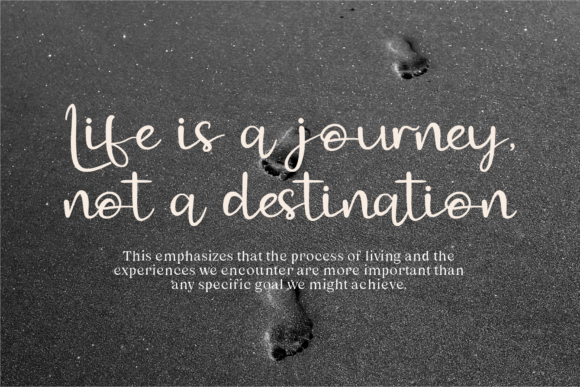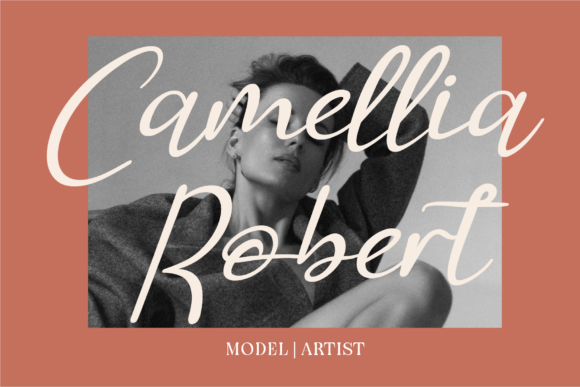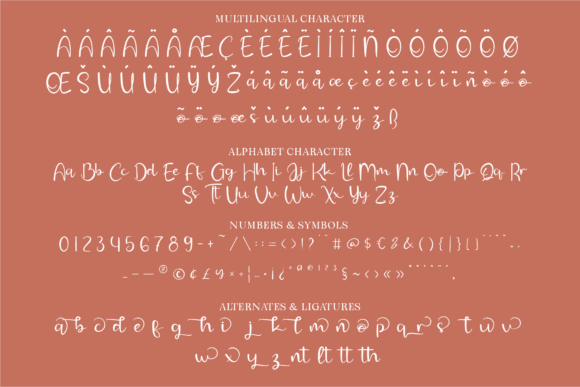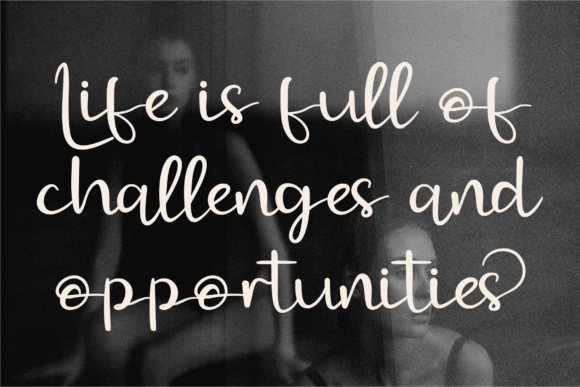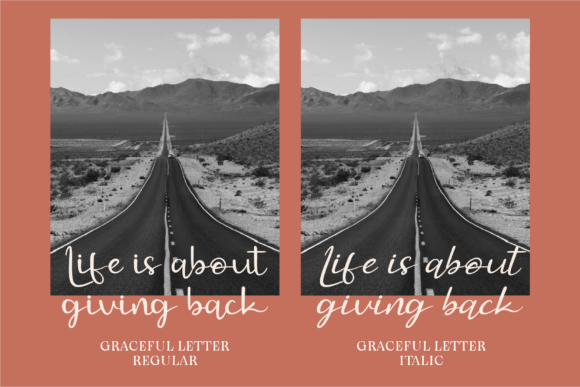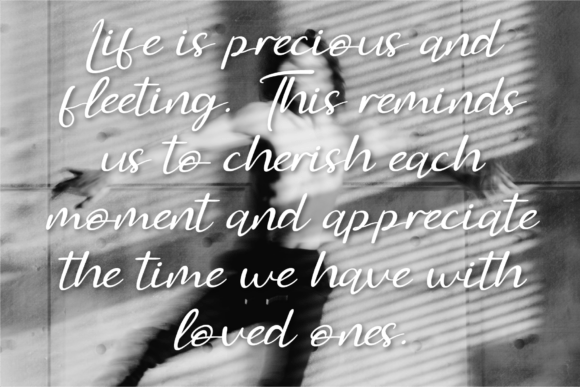
Introducing the Elegance of Graceful Letter Font
In the world of typography, few fonts manage to strike a balance between elegance and approachability. Graceful Letter is one such casual script font that embodies the perfect blend of sophistication and friendliness. Its flowing, effortless strokes give it a charming, handwritten style that is ideal for creating warm, personal designs. Whether you’re designing invitations, branding materials, or social media graphics, Graceful Letter brings a unique and friendly touch to your projects.
What Makes Graceful Letter Stand Out?
Graceful Letter’s design is characterized by its graceful curves and casual vibe, making it perfect for adding personality and charm to any creative endeavor. The font’s effortless strokes give it a natural, hand-written feel that resonates with authenticity and care. This makes it an excellent choice for designers and crafters looking to add a personal touch to their work.
Key Features of Graceful Letter Font
The following features make Graceful Letter a versatile and practical choice for a wide range of design projects:
- Standard Character Set: Includes A-Z, a-z, 0-9, punctuation, and symbols, ensuring you have everything you need to create comprehensive designs.
- Regular & Italic Style: Offers two styles to provide flexibility and variety in your designs.
- Multilingual Support: Cater to a global audience with a font that supports multiple languages.
- Alternates and Ligatures: Includes alternates and ligatures to add a creative touch to your text and make it stand out.
- PUA Encoded Characters: Allows for easy access to characters without the need for additional design software.
Graceful Letter is not just a font; it’s a tool that can elevate your designs and crafts to a new level of elegance and approachability. Designers will appreciate the font’s versatility and the way it can be used across various projects, from professional branding materials to more personal items like invitations and social media graphics. Crafters, on the other hand, will love how the font can add a personal, handmade touch to their work, making it perfect for DIY projects, handmade cards, and more.
Tips for Using Graceful Letter
To get the most out of Graceful Letter, consider the following tips:
- Mix and Match: Combine the regular and italic styles to create visual interest and hierarchy in your designs.
- Experiment with Colors: The font’s elegance shines through in various colors, so don’t be afraid to experiment with different palettes.
- Utilize Alternates and Ligatures: These features can add a unique touch to your designs, making them stand out.
- Pair with Solids: Pairing Graceful Letter with solid colors or backgrounds can enhance its elegance and make your designs pop.
Graceful Letter is more than just a font; it’s a design companion that can add elegance, charm, and personality to your projects. With its balanced approach to sophistication and friendliness, it’s an excellent choice for designers and crafters looking to make their mark. Whether you’re creating professional branding materials or personal crafts, Graceful Letter is sure to bring a unique and friendly touch to your work.